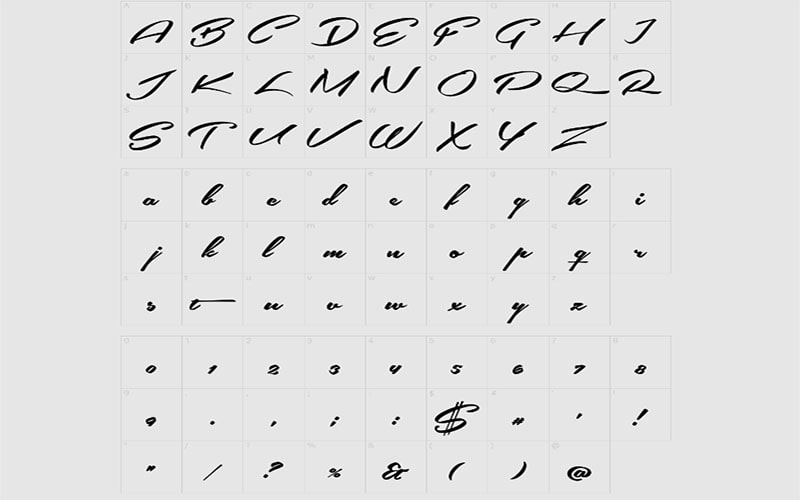
Southern Aire Font is a remarkable typeface that seamlessly combines elegance with versatility, making it an essential tool for any designer’s toolkit.
This modern typeface was created by Måns Grebäck, a Swedish typedesigner renowned for his ability to blend traditional and contemporary design elements.
Grebäck’s extensive experience and a keen eye for detail are evident in the sophisticated and graceful design of Southern Aire, which reflects a harmonious balance between classic calligraphy and modern typography.
It is available in a single, exquisitely crafted style that exudes a sense of sophistication and refinement. Its design features fluid strokes, delicate curves, and an overall graceful appearance that makes it stand out in various design contexts.
Southern Aire Font
| Font Name: | Southern Aire Font |
| Style: | Brush, Script, Typeface |
| Font Designer: | Mans Greback |
The versatility of Southern Aire Font makes it suitable for numerous applications, including Wedding Invitations, Branding and Logo Design, Editorial Design, Packaging Design, and Web Design.
The font has a balanced width, making it adaptable for both headlines and body text. The design features moderate stroke contrast, enhancing readability while maintaining a stylish look.